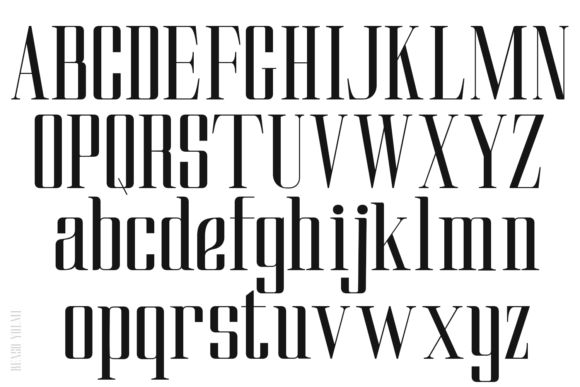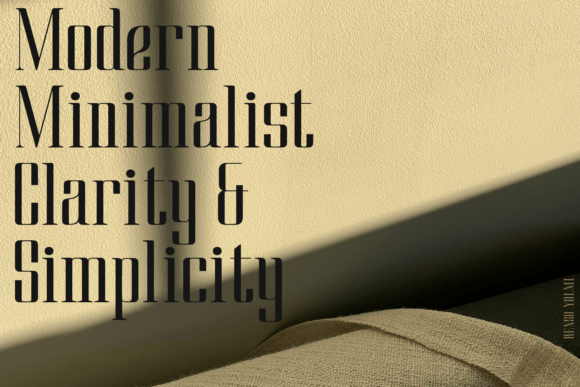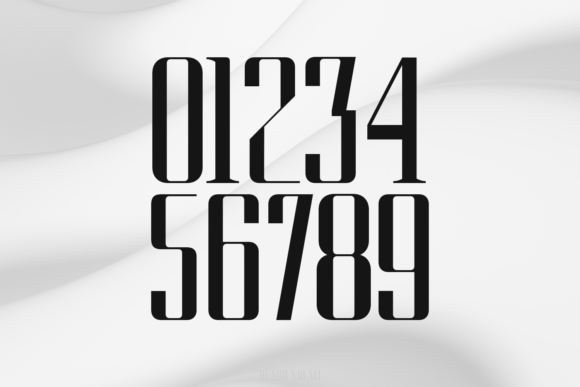
I still remember the frustration of working on a project, hours spent perfecting every detail, only to be held back by one thing: the font. It was a client request for a modern, elegant look, but everything I tried seemed either too over-the-top or too bland. That’s when I stumbled upon **Benso Yolmi**, a clean and modern minimalist serif font that changed the game. With its sleek lines and balanced letterforms, it conveyed a timeless elegance that suited the project perfectly.
A Closer Look: What I Love About Benso Yolmi
So, what makes Benso Yolmi stand out? Here are a few things I love about this font:
- ✨ Clean and minimalist design: Benso Yolmi’s simple, uncluttered design makes it perfect for projects where clarity is key.
- ✅ High readability: The font’s balanced letterforms and generous spacing ensure that your text is easy to read, even at small sizes.
- 💡 Versatility: Whether you’re working on a website, print project, or social media graphics, Benso Yolmi adapts seamlessly.
Honest Review: The Not-Perfect-but-Almost Section
No font is perfect, and Benso Yolmi has a few quirks:
- 🤔 Limited stylistic options: While Benso Yolmi is elegant and versatile, it doesn’t offer a wide range of stylistic alternates or bold variations.
- ⚠️ Not ideal for body text: While readable, Benso Yolmi shines best in headlines and short paragraphs; it might not be the best choice for long-form content.
The Story Behind Benso Yolmi
Benso Yolmi was created with the goal of blending modern minimalism with classic serif elegance. The designer aimed to craft a font that would be both timeless and versatile, suitable for a wide range of applications. Inspired by modernist design principles, Benso Yolmi brings a fresh yet sophisticated look to any project.
| What makes Benso Yolmi unique? | Benso Yolmi stands out with its clean lines, balanced letterforms, and elegant minimalist design. |
| Is Benso Yolmi suitable for body text? | While readable, Benso Yolmi is best used for headlines and short paragraphs; consider a complementary font for long-form content. |
| Does Benso Yolmi support OpenType features? | Yes, Benso Yolmi supports OpenType features like ligatures and stylistic alternates, adding versatility to your typography. |